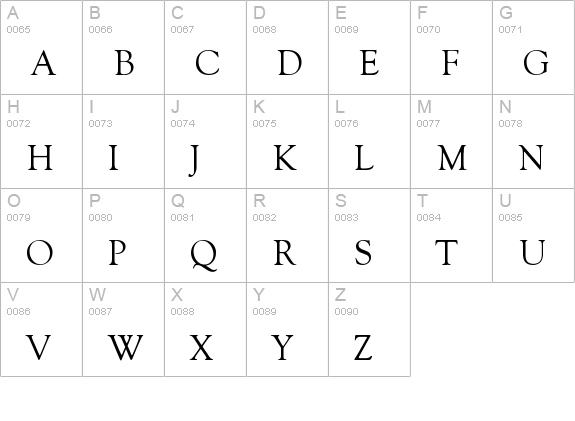
GoldenOldStyle font is a timeless and elegant typeface that exudes sophistication and class. Its delicate serifs and graceful curves give it a refined and traditional appearance, making it perfect for projects that require a touch of vintage charm. The GoldenOldStyle font is versatile and can be used for a wide range of design purposes, from invitations and posters to branding and packaging. Best of all, the GoldenOldStyle font is completely free to download at FontsMarket.com. This means that you can add this beautiful typeface to your collection without any cost, making it a valuable resource for your creative projects. Whether you are a professional designer or a hobbyist looking to enhance your work, the GoldenOldStyle font is a must-have addition to your font library. Download it today and elevate your designs with its timeless appeal.